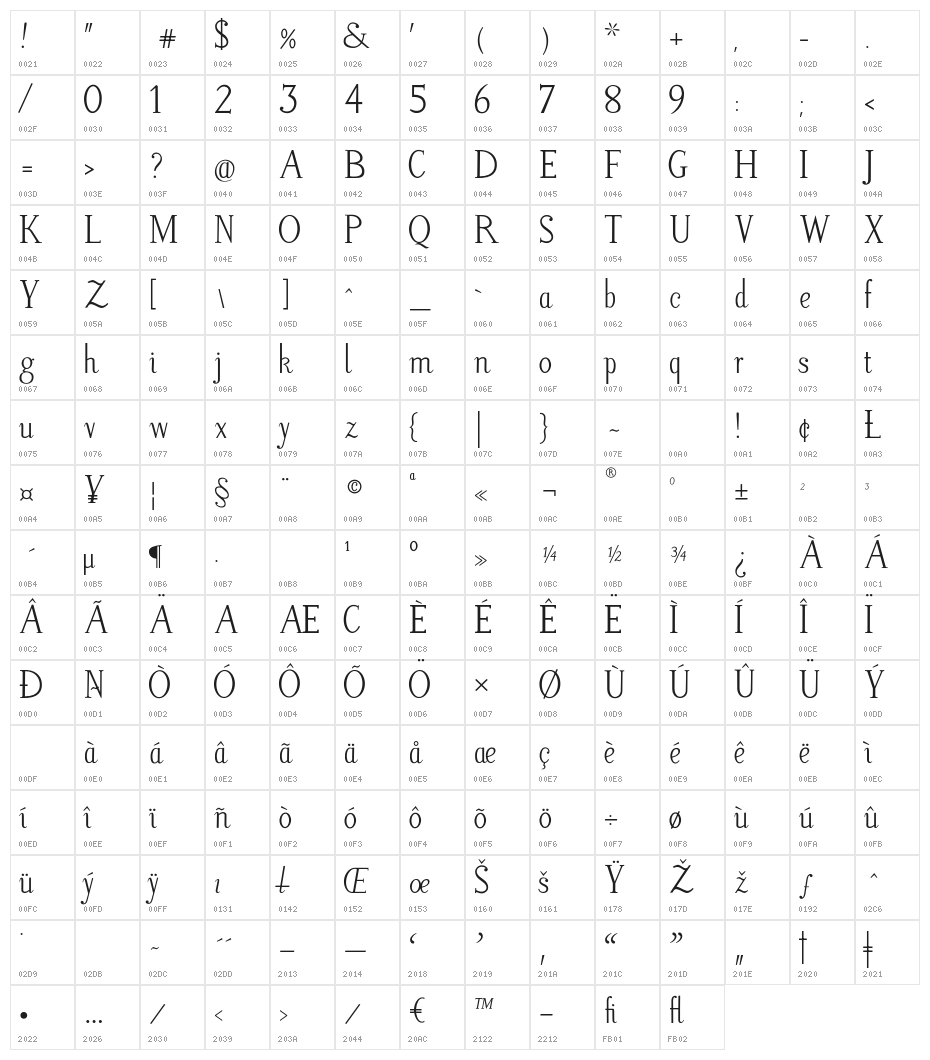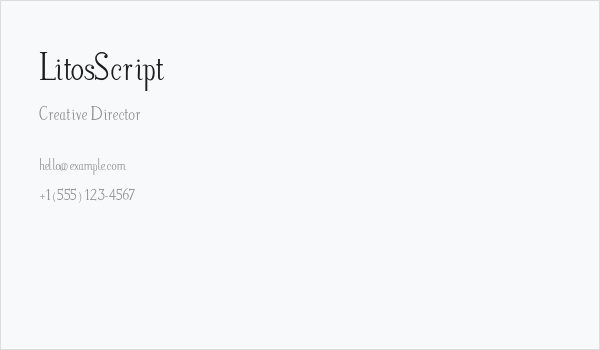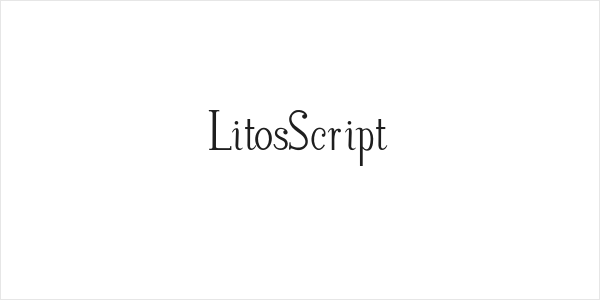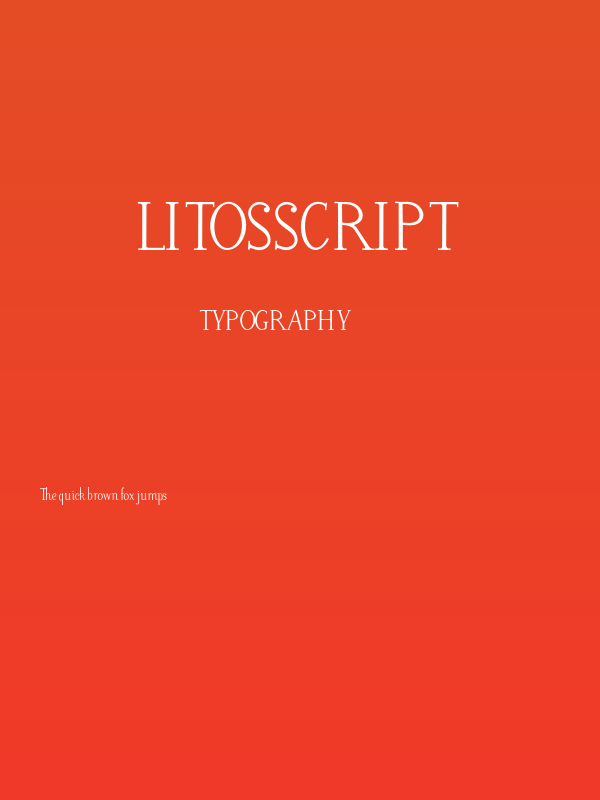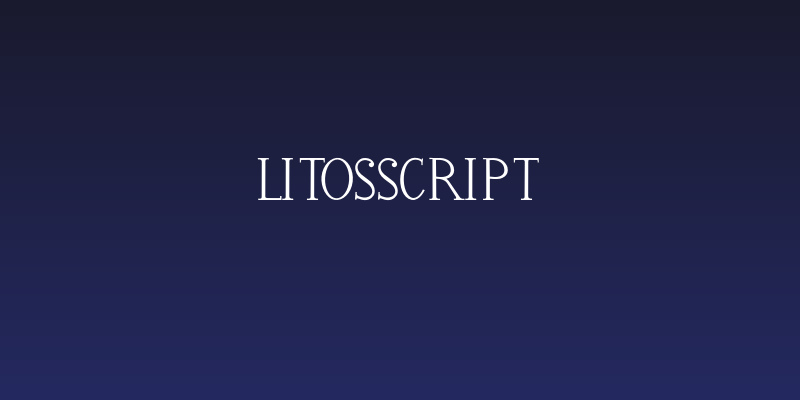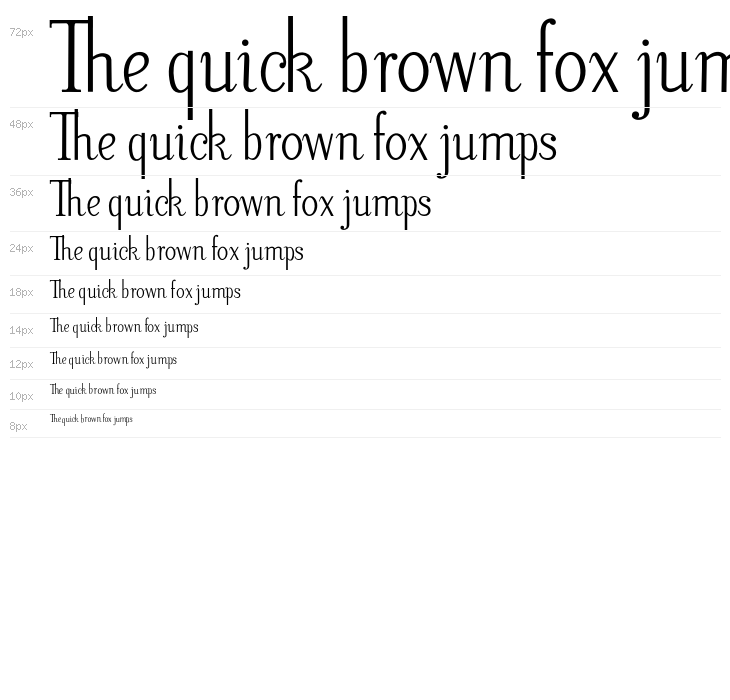
LitosScript Font
LitosScript Description
This font features a classic serif style with elegant, elongated strokes and a refined appearance. The uppercase letters are tall and slightly narrow, giving a sophisticated and formal look. The lowercase letters maintain a consistent style with smooth curves and delicate serifs, enhancing readability. Numbers are well-proportioned and align seamlessly with the overall design. Special characters are crafted with attention to detail, ensuring they complement the alphabetic characters. This font exudes a timeless charm, making it suitable for various applications.
| Overall Style | Classic |
| Use Case | Headlines, Body text, Logos |
| Proposed Projects | Ideal for formal invitations, editorial design, book covers, and branding materials that require a touch of elegance. |